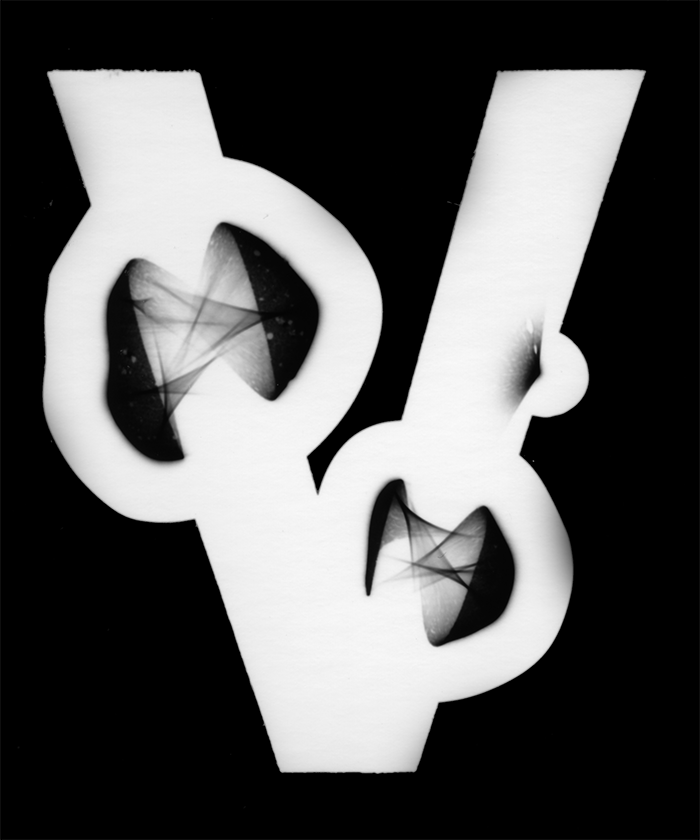
V/Photogram Study
Scanned photograms looped into an animated GIF.
Although my photogram studies may look like Photoshop or coding magic, they are the product of numerous hours in the darkroom. The photograms are scanned and only lightly edited to remove things like dust and fingerprints.